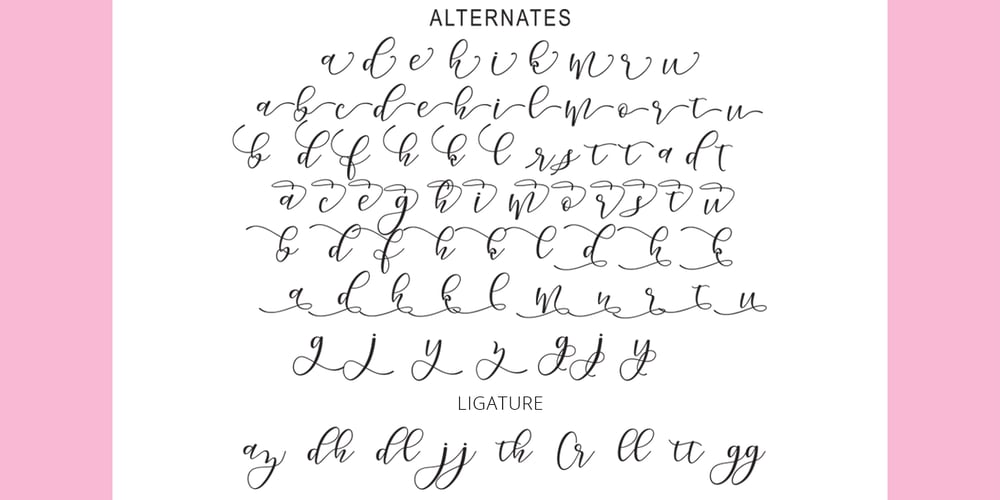
Morelight Script Font Family was designed by Fajriadi and published by Masinong Studio. Morelight Script contains 1 styles and family package options. Hi All ! Morelight Script is a modern script in a handmade calligraphy style with decorative characters and a dancing baseline! So beautiful on invitation like greeting cards, branding materials, business cards, quotes, posters, and more!! Morelight Script comes with 313+ glyphs. The alternative characters were divided into several Open Type features such as Swash, Stylistic Sets, Stylistic Alternates, and Ligature. The Open Type features can be accessed by using Open Type savvy programs such as Adobe Illustrator, Adobe InDesign, Adobe Photoshop Corel Draw X version, And Microsoft Word. This font has PUA unicode (specially coded fonts) so that all the alternate characters can easily be accessed by a craftsman or designer. Morelight Script Features : Uppercase & Lowercase International Languange & Symbols Support Punctuation & Number PUA Unicode Range Standard Ligatures Discretionary Ligatures Stylistic Alternates Stylistic Set 1-13: If you don’t have a program that supports OpenType features such as Adobe Illustrator and CorelDraw X Versions, you can access all the alternate glyphs using Font Book (Mac) or Character Map (Windows). If you have any question, don’t hesitate to contact me by email masinong.studio@gmail.com Thanks and happy designing 🙂